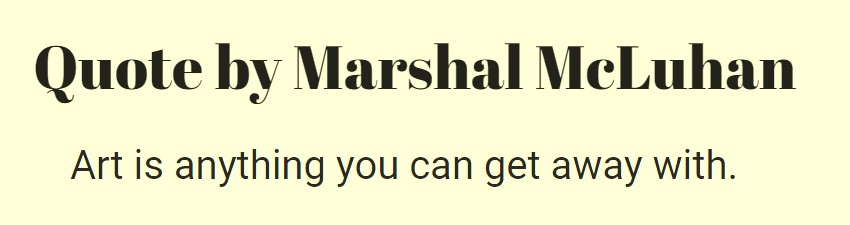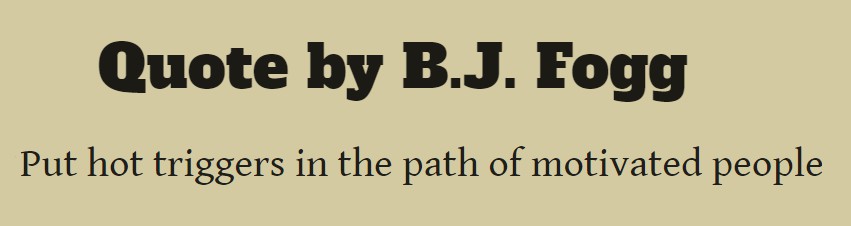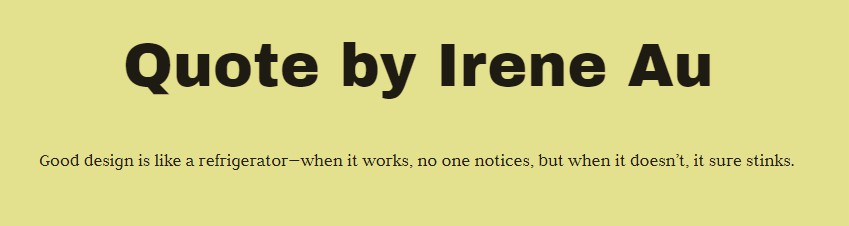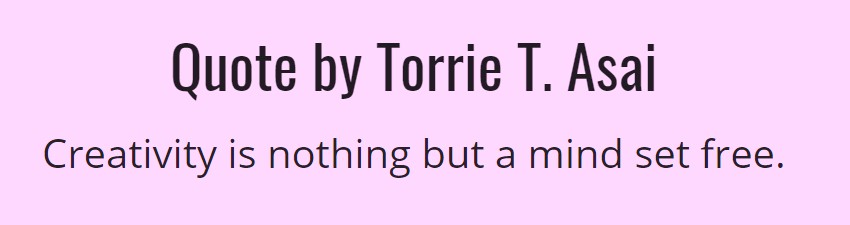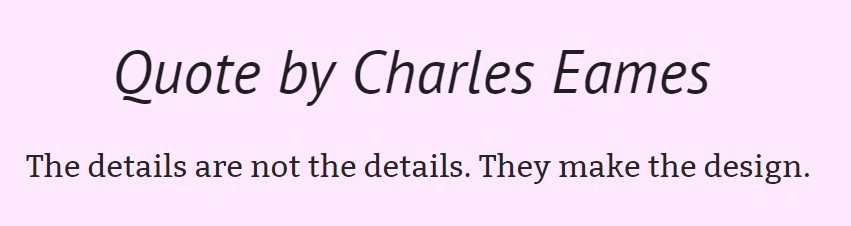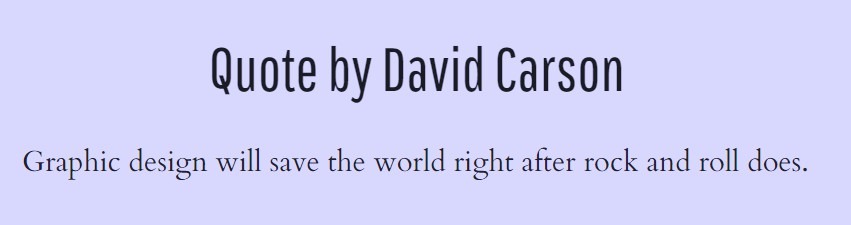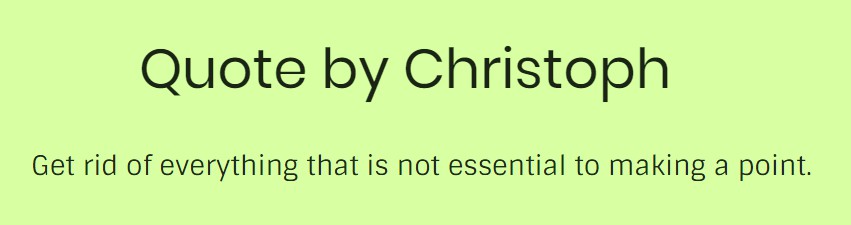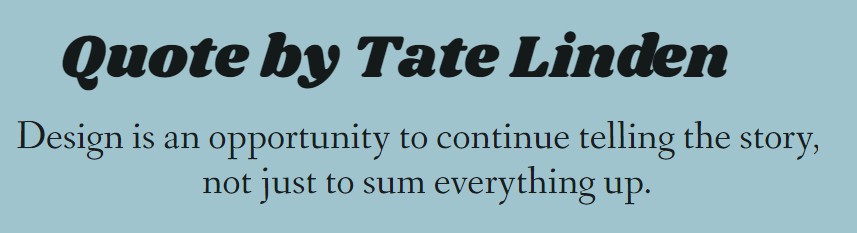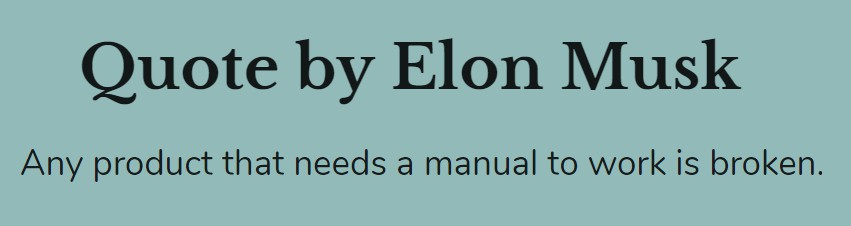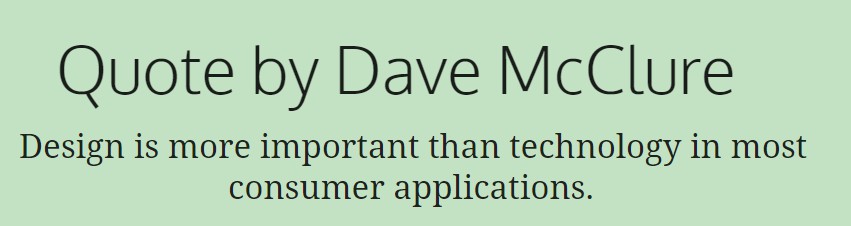
In this ever-changing time-zone, it is tough for the graphic designers to pick the perfect match of Google font pairings that work together in sync. They must run in harmony without being homogenous.
An ideal situation is when your eyes do not need to fight for attention. Also, a conventional rule states not to conflict, no matter how much concord or contrast.
There is a large box of typefaces and best Google fonts available for us that certainly make it difficult to make a valid choice.
Here, we are with the list of some dazzling Google font combinations that can help you produce beautiful results.
1. Cinzel Bold + Fauna One
Cinzel Bold typeface works in compliance with the classical proportions. With an ancient touch of the Latin alphabet, it portrays a contemporary feel for a pretty appearance.
When used with Fauna One, a modern typeface, it gives clarity when composing paragraph composition along with a magnificent look in the headlines as well. With the soft and condensed structure, it gives low contrast strokes plus soft terminals to form traditional serifs.
2. Anton Regular + Signika Light
In Anton Regular, the digitized letterforms are reshaped to be used as a web font. You can see the use of its bold display font in modern web browsers. And, it beautifully combines with Signika Light for writing neat paragraph content.
Being a Sans Serif, Signika Light contains a gentle character and works best for the areas where you require clarity of the text. With tall x-height and low contrast, it gives the readability of the text in small sizes. It is a typical signage typeface that is inspired by the other typefaces such as Tahoma and Meta.
3. Patua One Regular + Maven Pro Regular
Patua One Regular slab serif text type is launched with a motto to give a good feel in small sizes. With low contrast and strong serifs, it creates a heavy visual impact. Likewise, the thick serifs are curved with a fine touch of flawlessness and gesture.
Maven pro regular acts as a good partner of Patua One Regular due to its unique curvature and flowing rhythm. It is a sans-serif typeface with utterly distinguishable and legible forms. It mixes the essence of the different style formats to get fits in any design medium. The modern design of Maven Pro is perfect for the web.
4. Shrikhand + Fanwood text
Shrikhand is an integral element of the Gujarati and Latin writing systems as being a Big, bold, and unapologetic display type. Its expressive and curvaceous feel gives it more marks in strong yet lucrative appeal.
The strong partnership of Shrikhand and Fanwood Text, a revival of Fairfield (the first typeface in the web) creates exciting results. The Roman and Italic styles of Fanwood text are slightly darker while being reduced in contrast for better readability in e-books.
5. Alfa Slab One + Gentium Book Basic
Alfa Slab One is designed with big serifs and extreme stem weight along with more stem contrast. Its beauty lies in the contemporary look with extreme black density.
Alfa Slab One is being paired with Gentium Book Basic to give a touch of clarity and engaging appeal. The latter font style format takes its form from the original Gentium design along with some additional weights.
6. Arvo Regular + Lato Regular
Arvo is a kind of geometric typeface that is ideal for screen and print. Its font flavor is neatly mixed to turn
Arvo is a geometric typeface that is ideal for screen and print. Its font flavor is mixed to turn monolinear to expand the legibility.
For better combinations, Lato Regular is the preferred name with Arvo Regular. The reason is the feeling of warmth due to the semi-rounded touch in the letters. Moreover, its strong structure offers a sigh of stability.
7. Libre Baskerville Bold + Nunito Regular
Libre Baskerville Bold is an appealing web font and we optimize for body text. A tall x-height and low contrast make it compatible to work for reading on-screen.
Nunito Regular, a well-balanced typeface superfamily, has 2 versions. It was initially designed as Nunito as being a rounded terminal sans terrific to display typography which was extended to a complete set of weights as a regular non-rounded terminal version.
8. Rufina Bold + PT Serif Regular
Rufina Bold is a strong style format that combines the features of several typographic styles including the Bodoni forms that are found in the calligraphy of flexible tip pens. The high contrast works well in both text and headlines.
PT Serif Regular is a transitional serif typeface that is harmonized across metrics, proportions, weights, and design. Its reliable partner is PT Sans but it can also work fairly good with Rufina Bold to add strong appeal. It has humanistic terminals along with six styles of composition in the family.
9. Permanent Marker + Overpass Regular
With Permanent Marker, you can get the look and feel of a favorite writing instrument that makes it ideal for writing in the decent blogs.
The above Google font combinations are deadly for sure, but above them, few tips are important to follow. Therefore, the primary idea that can do wonders is to use different fonts within the same overarching family of the typeface. Thereafter, the result will be a ready-made range of styles, weights, and classifications.
In this list, another essential trick is to pair the contrasting typefaces because similar typefaces might conflict.
So, last but not least lesson is to pair the type sub-categories. Finally, this adjoining will create highly exciting and strong combinations.